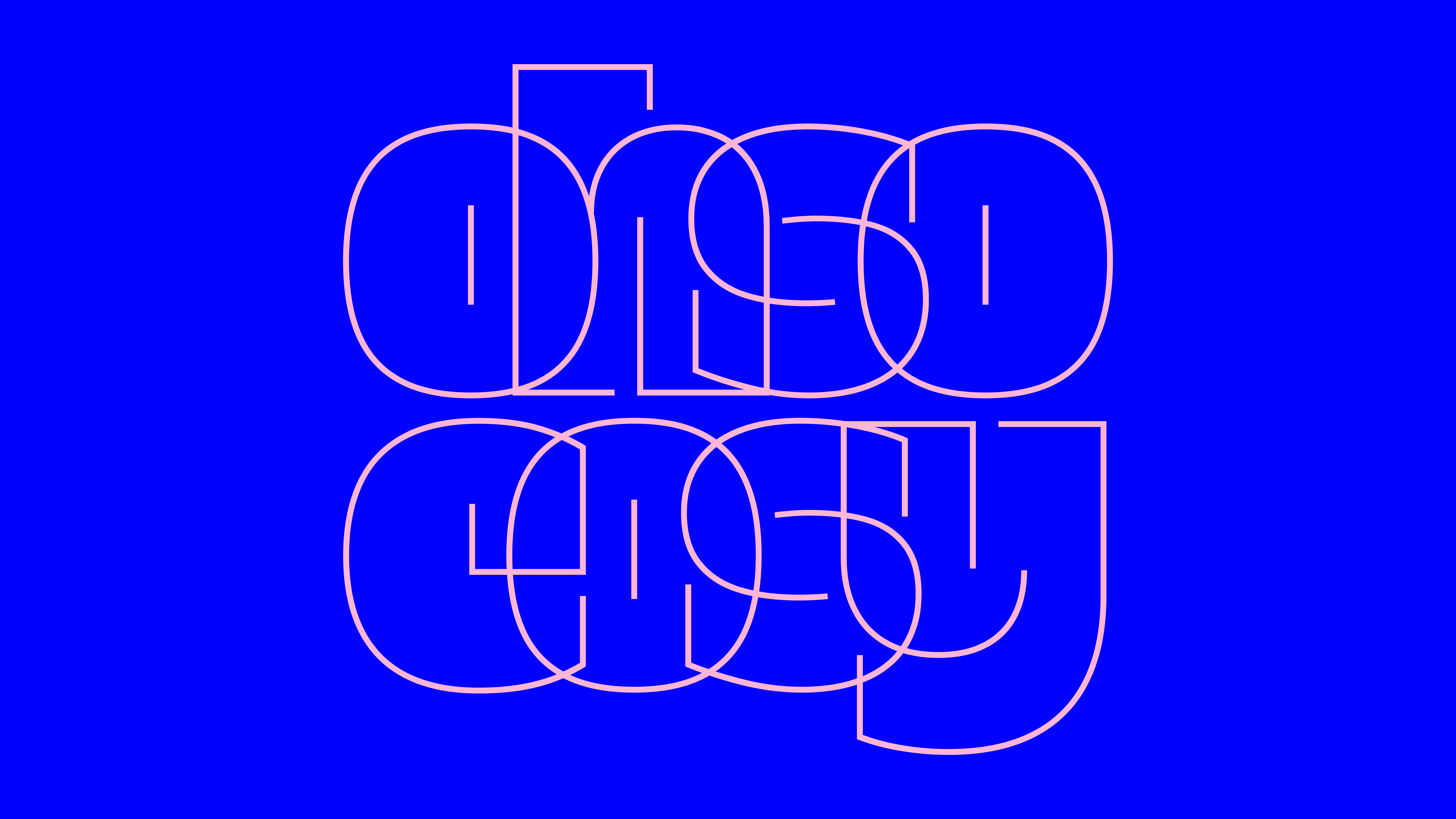
F37 Nifty
F37 Nifty is a surprising display sans serif, that brings joy to any type it sets. It is exciting, lively and packed full of character, exemplifying Alec Tear’s unique design and lettering style.
We wouldn’t call it crazy, but Alec has defiantly broken conventions we would otherwise take for granted. The boundaries of the characters are defined by a stroke, creating white letter forms with a black boundary. The boundaries are broken in a thoughtful way to create depth, as if the letters fold around themselves. And if you still aren’t satisfied, F37 Nifty’s italics are an intertwining and never-ending rhythm of strokes, blurring where one letter ends and the other begins. The character set is also brimming with emojis, symbols and alternate characters all matching the unique style of F37 Nifty. With all of these features, F37 Nifty is a truly unique tool ready to provide a rich and vivid typographic palette to any designer.
Alec Tear is an independent British designer and lettering artist who partners with creative agencies, brands and other independent specialists all over the world to produce beautiful, effective and original design solutions.
After gaining an extensive background in branding, packaging and creative problem-solving at acclaimed design agency Jones Knowles Ritchie, Alec set up his own practice where he combines his experience of working with brands of all sizes, with his unwavering passion for lettering art which ultimately drives the bold and typographic nature of his work.
Tell us about the inspiration behind your collaboration with F37®×. If it was an unused concept, what was the potential use case for it.
Nifty originated from a simple thumbnail sketch I drew of a lowercase 'g'. I was particularly interested in the idea that strokes didn't necessarily have to define the positive space of a letter; they could also serve as outlines to accentuate negative space. I was pleasantly surprised by the expressive capabilities of this drawing technique, and quickly mapped out a complete alphabet, uncovering numerous potential solutions for each character.
When starting the process of creating your font, what typographic conventions did you look to break or experiment with? Or were there conventions of functionality you championed?
Nifty breaks quite a few different typographic conventions, whilst retaining a sense of familiarity and legibility, making it adaptable for a range of different uses. In particular it explores innovative approaches to counter forms, letter boundaries, and italic possibilities. One of its distinctive features is that as the line weight increases, the letters paradoxically appear lighter.
Now that your typeface has launched, what would be your dream project to use your F37® typeface on?
I'd love to see Nifty used for festival branding. Partly because it feels so fun and carefree, but from a functional standpoint I think it would work well as legible, yet eye-catching wayfinding in physical spaces, that could be easily replicated with stencils and paint.
What have you learnt through developing and creating your own typeface(s) with our F37® type designers?
I have learnt that it's harder than it looks to develop a script style font. Luckily for me, Ryan Williamson, was a wizard in this area and had the scripted italics flowing seamlessly in no time.
How would you describe your typeface in three words?
Playful. Charming. Squishy.